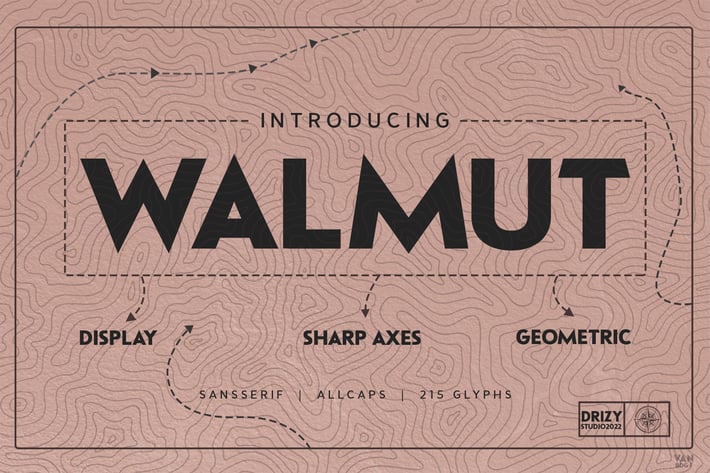
Walmut - Geometric Font
Introducing Walmut! a sans serif geometric font from Drizy! It's suitable for bold theme of your project.
Walmut Features:
Multilinguals & Ligatures